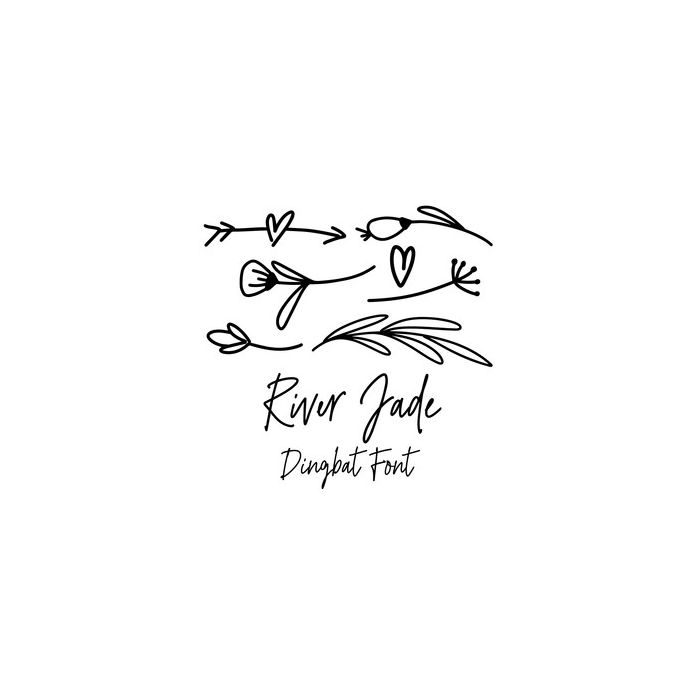
River Jade Dingbat font includes 36 shapes which you can type out using the characters a-z and 0-9. There are lovely shapes included like flourishes, leaves, florals, hearts, swirls and arrows